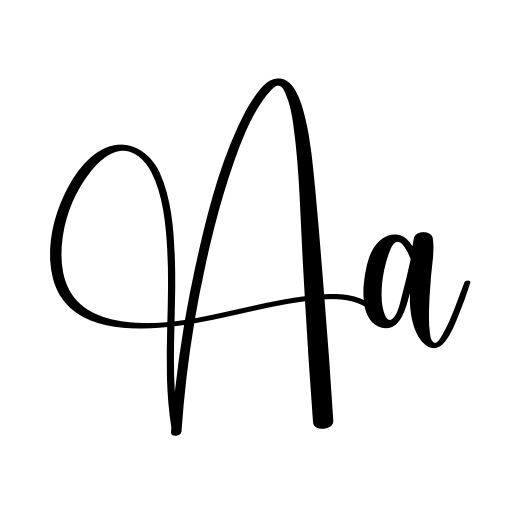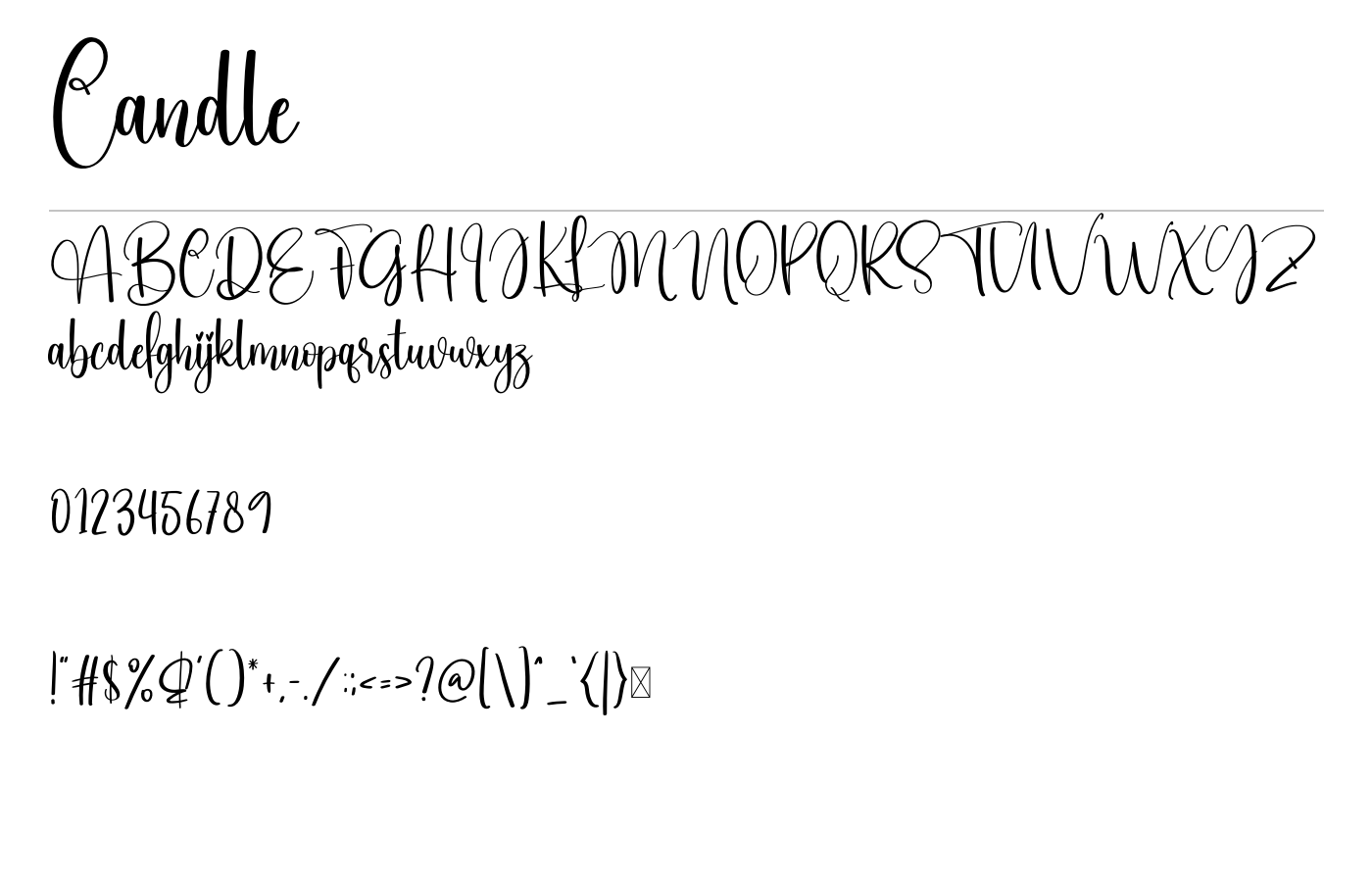
Candle is a delicate, handwritten script font featuring elegant, thin strokes with playful, flowing uppercase letters and neat, low-contrast lowercase forms. Its charming, casual style works beautifully for feminine branding, invitations, and creative projects that seek a personal, artistic touch. Perfect for headlines and decorative uses, Candle adds a warm, inviting feel without overwhelming the design.
Candle Font
About Candle Font